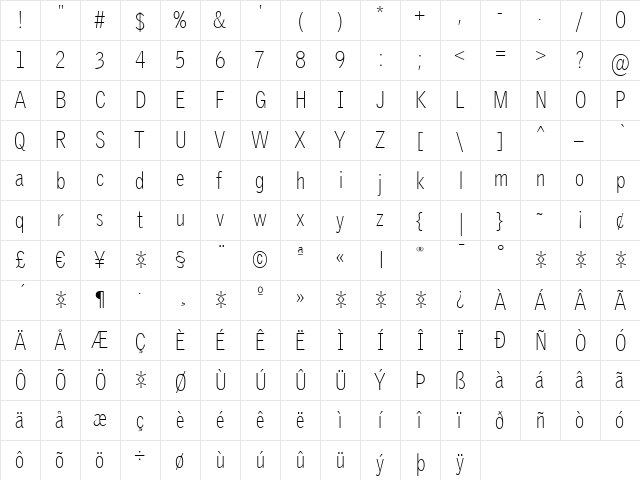
GriffithGothic Cond Thin Regular Font Preview
Design Context for GriffithGothic Cond Thin Typeface
GriffithGothic Cond Thin has the quiet confidence of well-executed sans-serif typography: versatile, unobtrusive, and dependable at any size. Its slender proportions lend an understated elegance to any composition. The condensed width makes it efficient for tight spaces without sacrificing legibility.
A natural fit for high-end product packaging, luxury brand identities, and refined web typography.
Font Pairing: Pair GriffithGothic Cond Thin with a medium or bold serif for headlines — the weight contrast creates an elegant, high-end feel.
Pro Tip: Use GriffithGothic Cond Thin tightly set in headlines and banners — its condensed proportions make it ideal for maximum impact in minimum horizontal space.